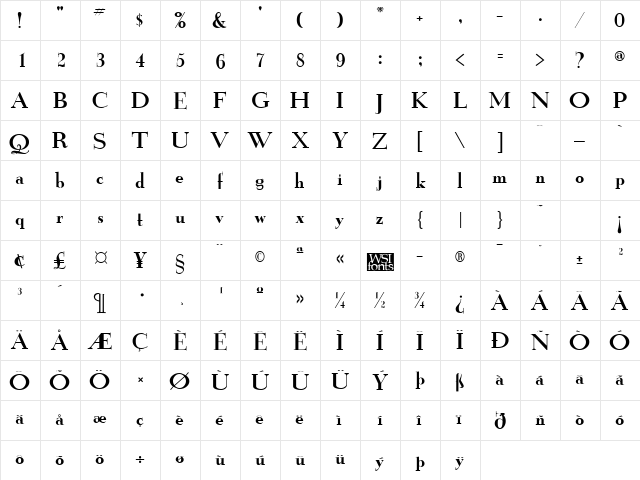
GrailNew Regular
Design Context for GrailNew Typeface
GrailNew takes a measured approach to typography — its balanced proportions and neutral character make it a reliable workhorse for both digital and print work.